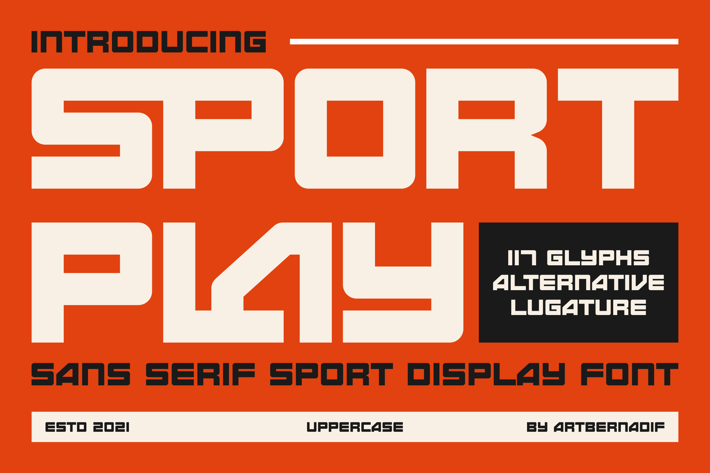
Sport Play - Sans Serif Sport Display Font
Introducing our new product Sport Play Font Sans Serif Sport Display Font
Sport Play Font Modern Font is a bold and authentic display font. The font is suitable for any branding project like logo, t-shirt printing, esport, and many more.
outstanding in a wide range of contexts.
Sport Play Uppercase
Sport Play Alternative
Sport Play Ligature